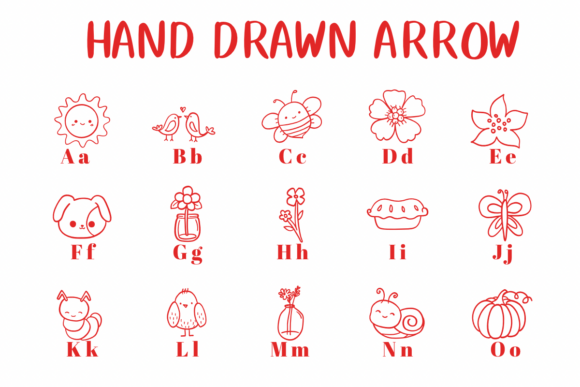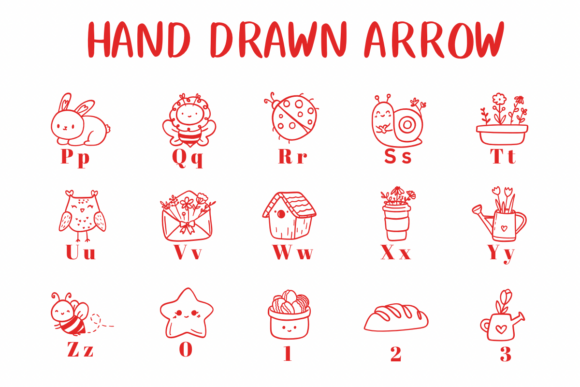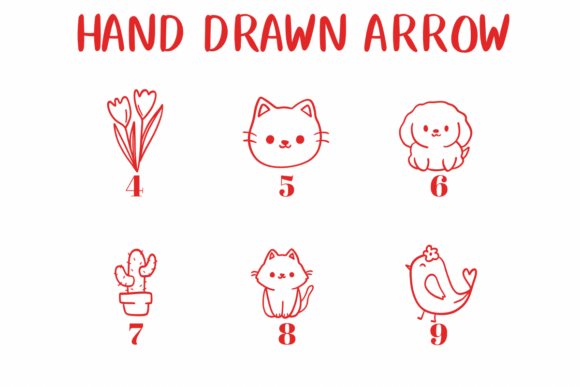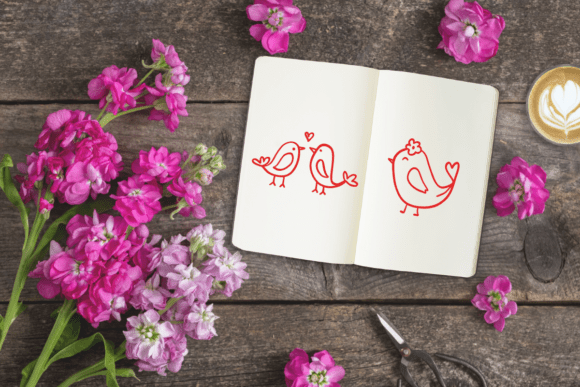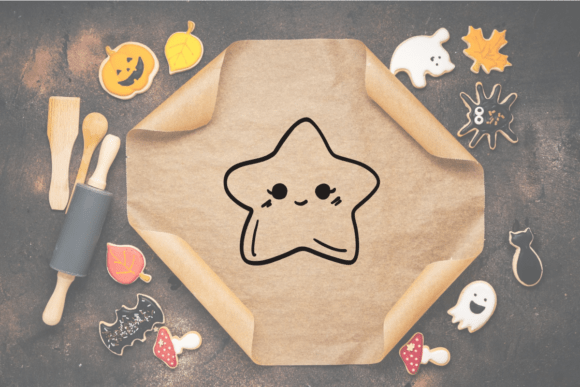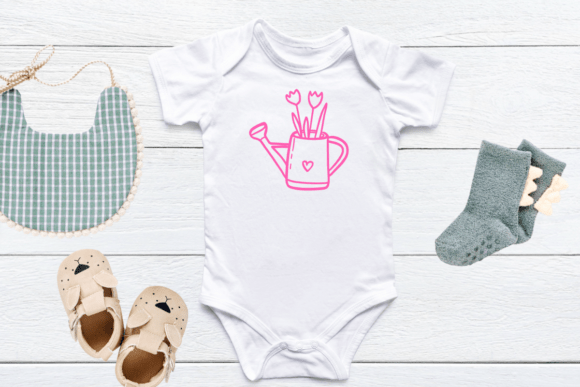
Doodles Hand Drawn Font: Add a Touch of Whimsy to Your Designs
Are you looking for a font that can add a dash of playfulness and charm to your designs? Look no further than Doodles Hand Drawn, a delightful dingbats font that is filled with whimsical, hand-sketched illustrations. This font is perfect for designers, crafters, and anyone who wants to add a personal touch to their projects.
What is Doodles Hand Drawn Font?
Doodles Hand Drawn is a unique font that features a collection of adorable illustrations, including animals, flowers, stars, and nature-inspired icons. Each character in the font is carefully hand-drawn to give it a personal and whimsical feel. The font is designed to be easy to use, so you don’t need any design skills to add a charming doodle to your project. Simply type a character, and the corresponding illustration will appear.
Features of Doodles Hand Drawn Font
- Whimsical illustrations: The font features a range of whimsical illustrations, including animals, flowers, stars, and nature-inspired icons.
- Hand-drawn characters: Each character in the font is carefully hand-drawn to give it a personal and unique feel.
- Easy to use: The font is easy to use, and you don’t need any design skills to add a charming doodle to your project.
- Perfect for kids’ projects: The font is perfect for kids’ projects, such as coloring books, activity sheets, and educational materials.
- Ideal for planners and stickers: The font is also ideal for planners, stickers, and greeting cards, adding a personal touch to your designs.
Uses of Doodles Hand Drawn Font
Doodles Hand Drawn font can be used in a variety of projects, including:
- Kids’ projects: Use the font to create fun and engaging kids’ projects, such as coloring books, activity sheets, and educational materials.
- Planners and stickers: Add a personal touch to your planners and stickers with the font’s whimsical illustrations.
- Greeting cards: Use the font to create unique and personalized greeting cards for special occasions.
- Crafting: The font is perfect for crafters who want to add a personal touch to their projects, such as scrapbooking, journaling, and card making.
Benefits of Using Doodles Hand Drawn Font
Using Doodles Hand Drawn font can bring a range of benefits to your designs, including:
- Unique and personalized designs: The font’s whimsical illustrations can help you create unique and personalized designs that stand out from the crowd.
- Easy to use: The font is easy to use, even for those with limited design experience.
- Time-saving: The font can save you time and effort, as you don’t need to create illustrations from scratch.
- Fun and engaging: The font’s whimsical illustrations can add a fun and engaging touch to your designs, making them more appealing to your audience.
Tips for Using Doodles Hand Drawn Font
Here are some tips for using Doodles Hand Drawn font:
- Experiment with different characters: Experiment with different characters in the font to find the ones that work best for your project.
- Combine with other fonts: Combine the font with other fonts to create a unique and visually appealing design.
- Use in combination with images: Use the font in combination with images to add a personal touch to your designs.
- Have fun: Most importantly, have fun with the font! The whimsical illustrations are designed to bring a smile to your face, so enjoy using them.
In conclusion, Doodles Hand Drawn font is a delightful dingbats font that is perfect for designers, crafters, and anyone who wants to add a personal touch to their projects. With its whimsical illustrations and easy-to-use design, it’s a great choice for kids’ projects, planners, stickers, greeting cards, and crafting. So why not give it a try and add a touch of whimsy to your designs?